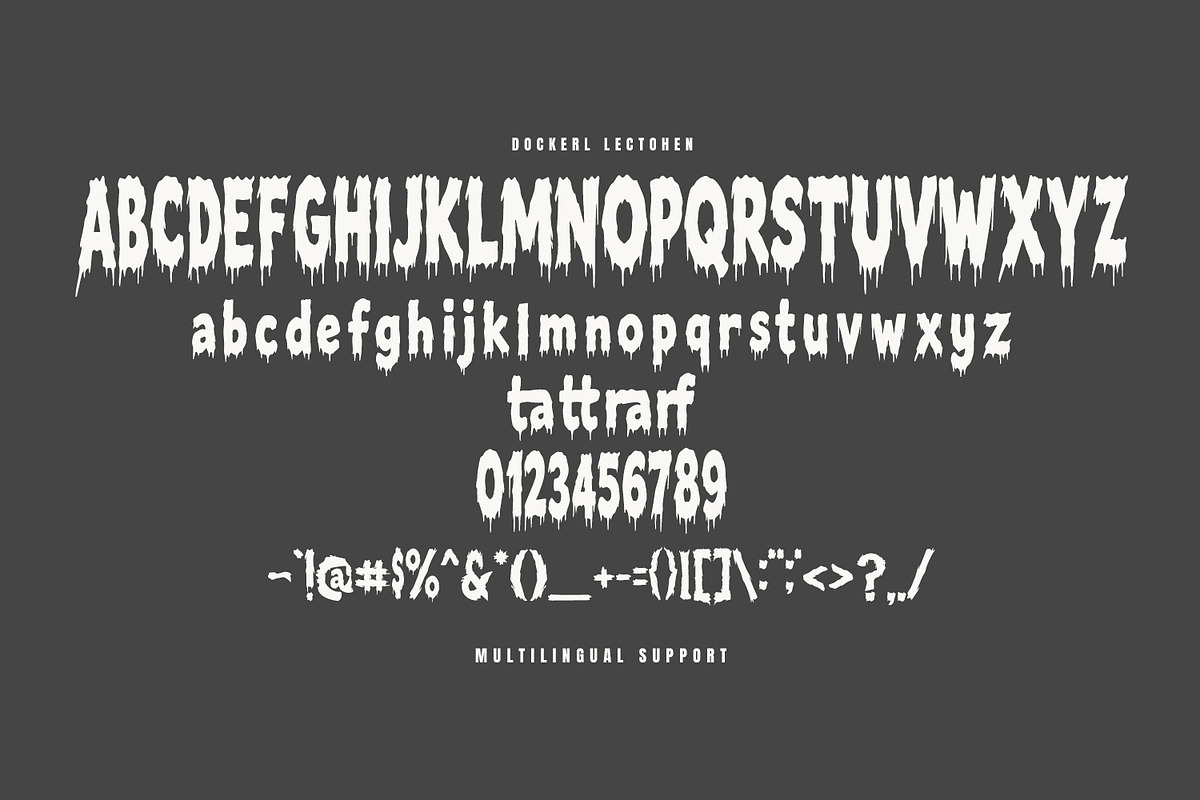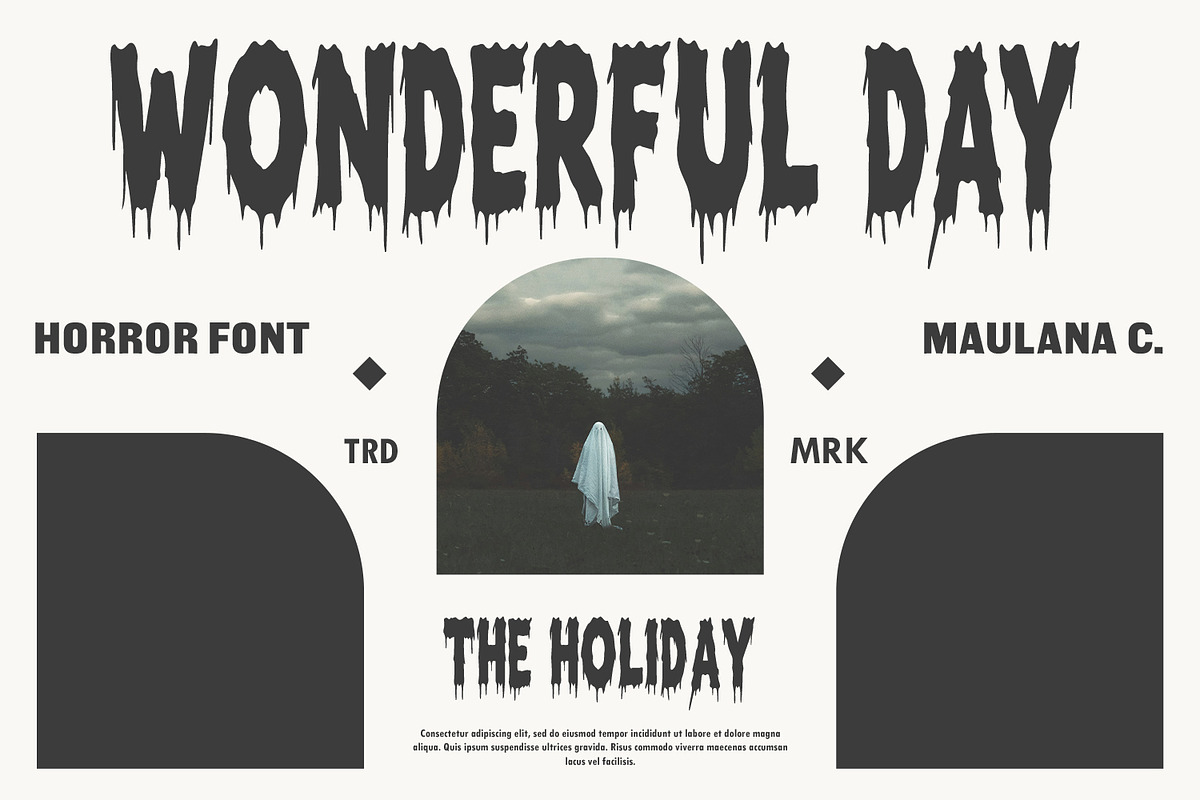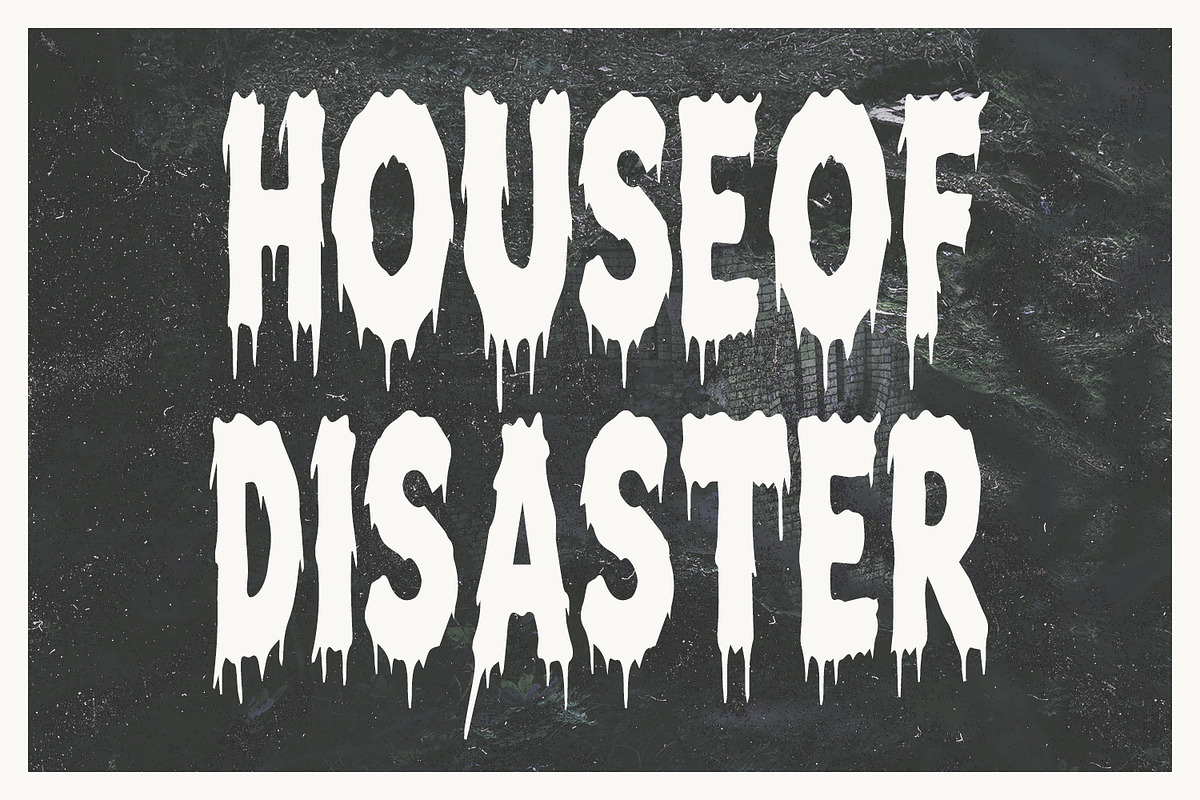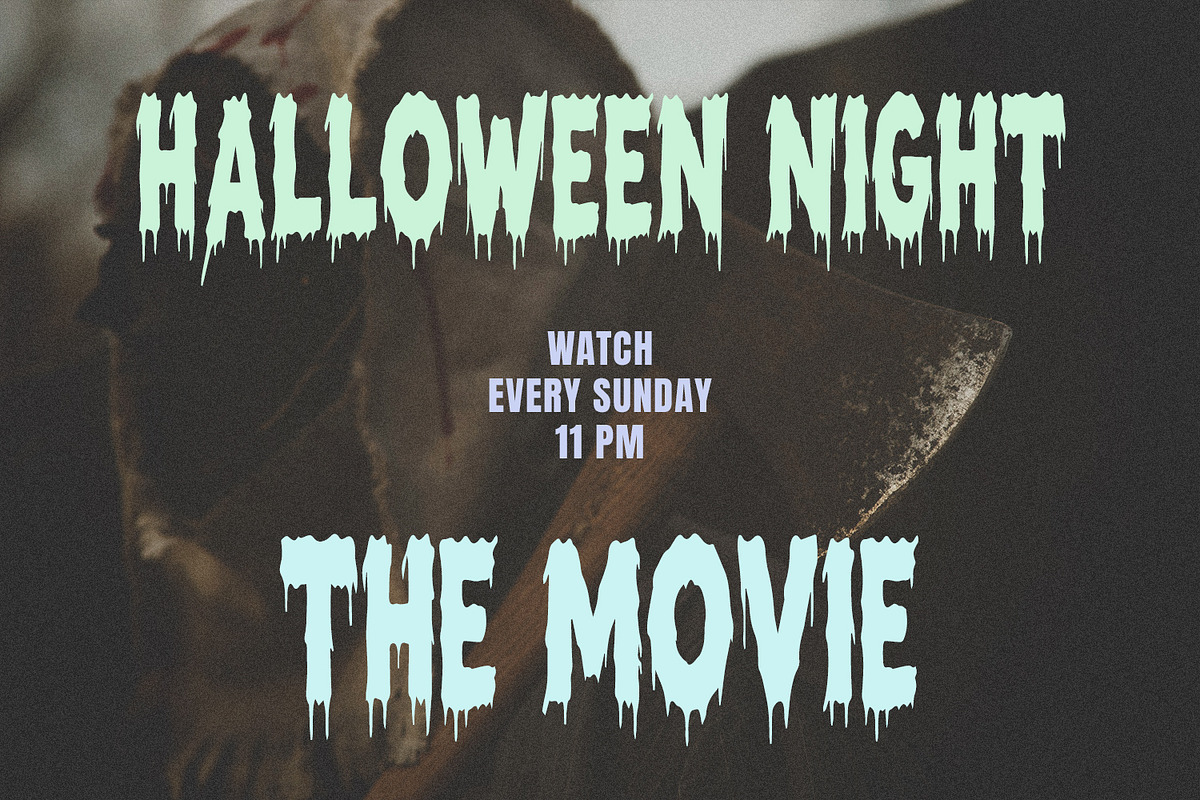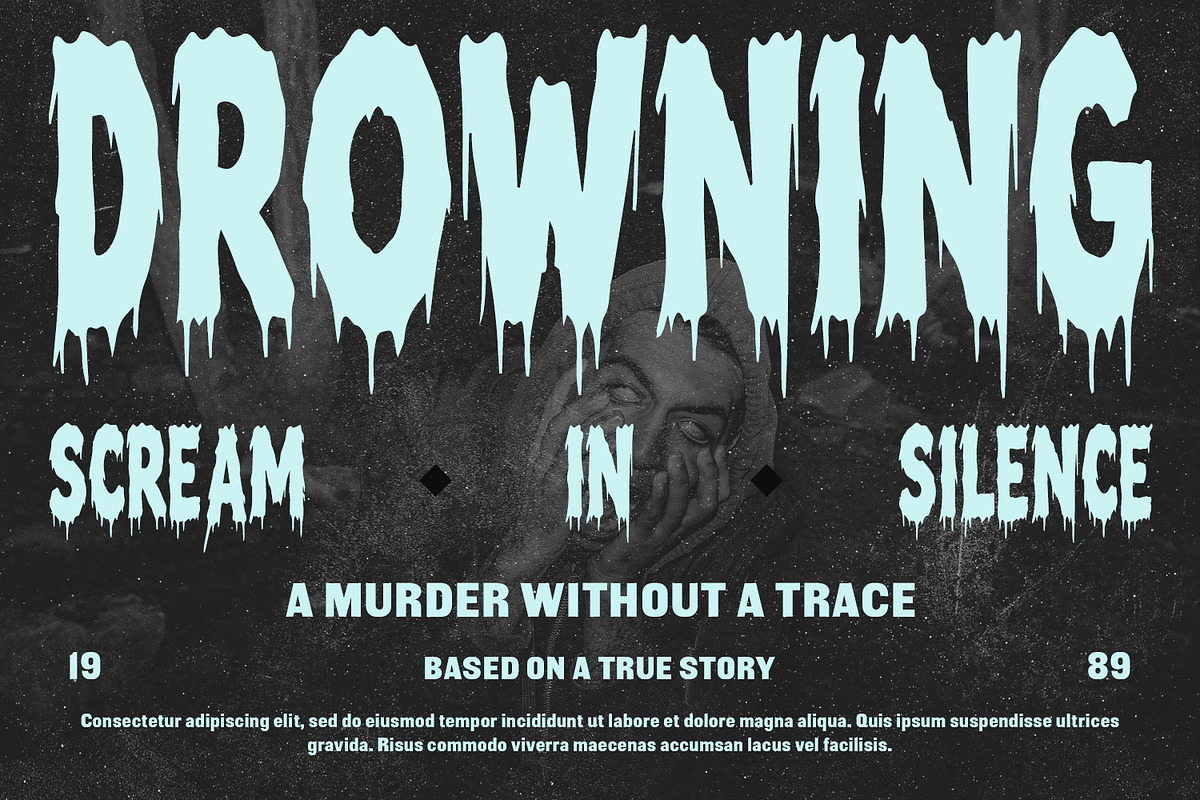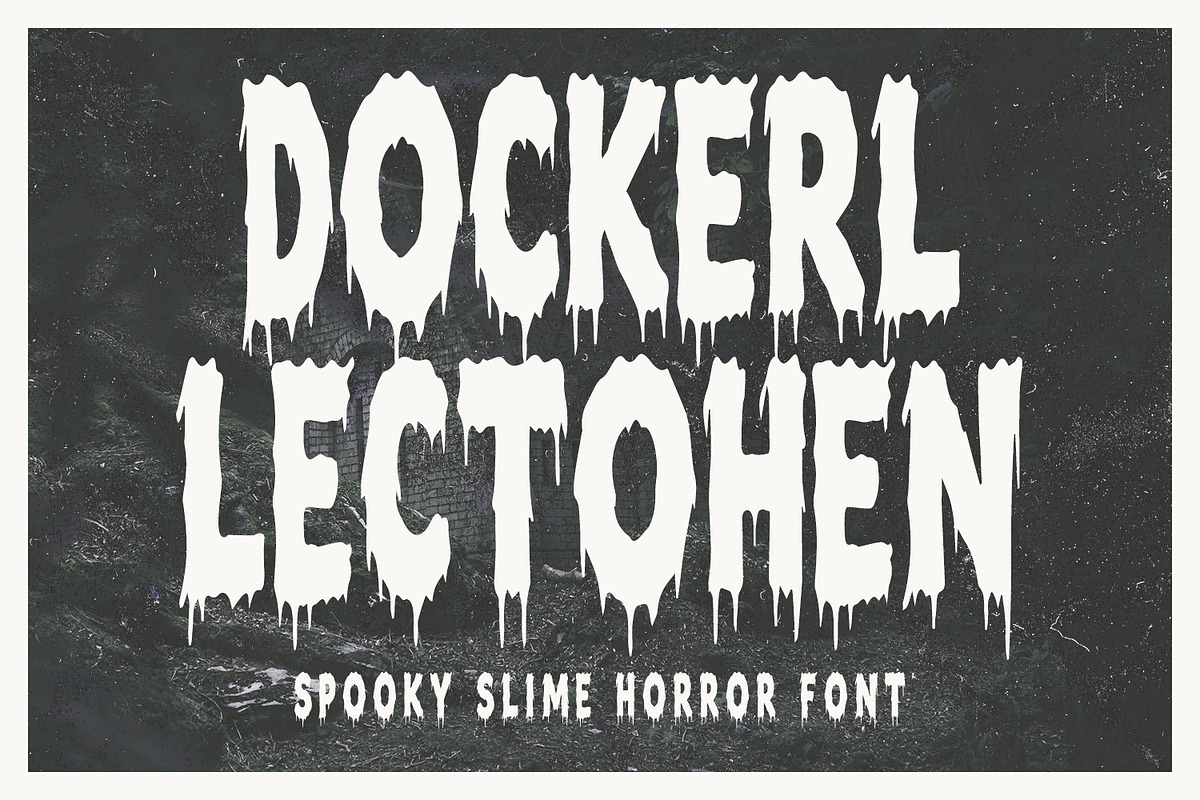
Dockerl Lectohen Spooky Slime Horror
Dockerl Lectohen is a spine chilling display font designed to bring a "dripping slime" aesthetic to your creative projects. Characterized by its tall, condensed letterforms and dramatic melting effects, this typeface perfectly captures the essence of classic horror cinema and 90s goosebumps-style thrillers.
The font includes a full set of uppercase and lowercase characters, numerals, and punctuation, all featuring a consistent "ooze" texture. It is an ideal choice for Halloween party invitations, horror movie posters, spooky book covers, or any branding project that requires a dark, macabre, and supernatural touch.
- Full character set
- Numbers, Punctuation, and Symbols
- Ligatures for a natural handwriting flow